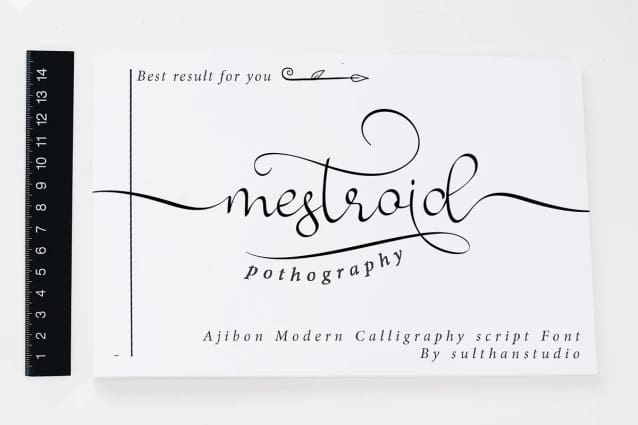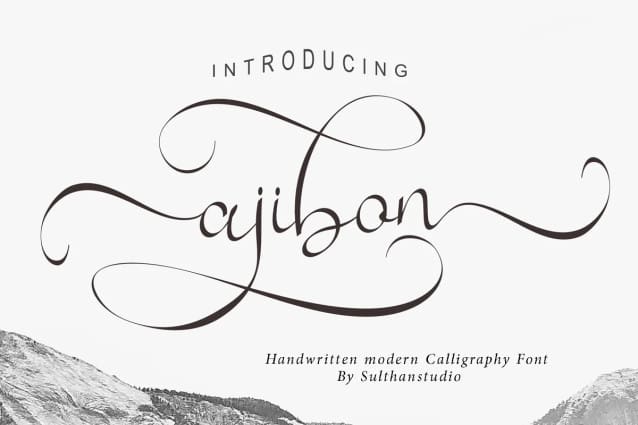
Ajibon Font
Ajibon Font – Handwritten calligraphy fonts that are scribbled on paper and then remade into modern handwriting are very beautiful and charming with curves and thickness of strokes that are very luxurious but also still natural. Can used for various purposes. such as the title, signature, logo, correspondence, Name Card, Quotes, wedding invitations, letterhead, signage, labels, newsletters, posters, badges, etc.
Ajibon Font – It contains a full set of lowercase & uppercase, a large range of punctuation, numerals, and multilingual support. The font also contains several ligatures, stylistic alternates, and Stylistic Set, for you who have opentype, or through a panel of glyphs capable software e.g.Adobe Photoshop; Adobe Illustrator, Corel Draw and Adobe InDesign.
OpenType features with alternative styles, ligatures, and multiple language support.